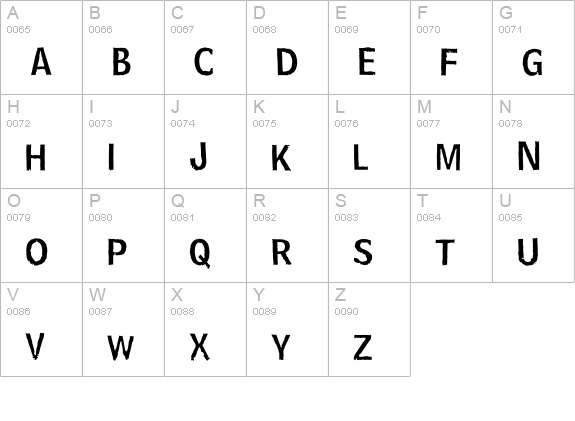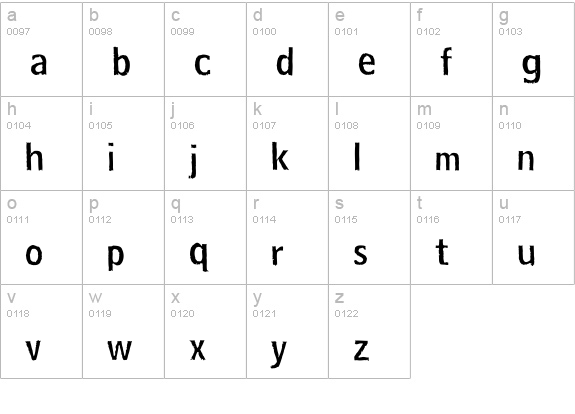
HooskerDont Font Details
Introducing HooskerDont font, a whimsical and playful typeface that adds a touch of fun to any design project. With its quirky and unique letterforms, HooskerDont is perfect for creating eye-catching headlines, posters, invitations, and more. This font exudes a sense of lightheartedness and creativity, making it an ideal choice for projects that require a touch of whimsy. The best part? HooskerDont font is available for free download at FontsMarket.com. Whether you're a designer looking to add a playful element to your work or simply someone who appreciates fun and quirky fonts, HooskerDont is sure to delight. Download it today and let your creativity soar with this charming and free-spirited typeface.